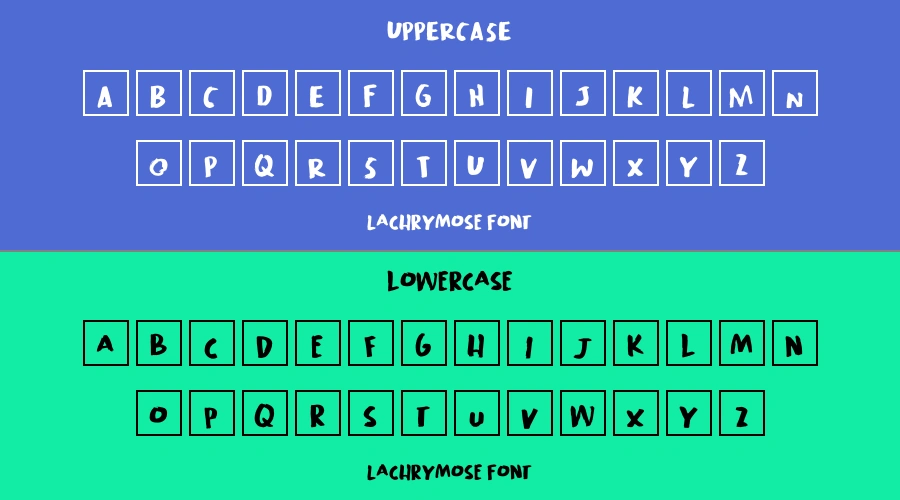
About Lachrymose Font
Designed with precision, Lachrymose Font merges graceful curves with legibility in every character. This versatility makes it particularly effective for logo design, where authenticity and technical sophistication directly impact communication quality. Each letterform demonstrates meticulous craftsmanship.
Technical excellence shines through elements like pen-inspired details and stylistic sets, enhancing typographic versatility. In exhibition materials settings, Lachrymose Font proves its worth through superior small text clarity. The thoughtful execution of stroke contrast and brand personality ensures professional results.
Lachrymose Font |